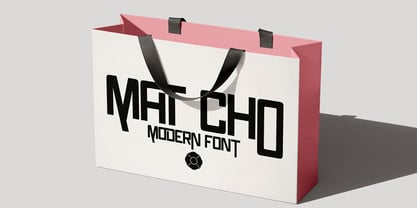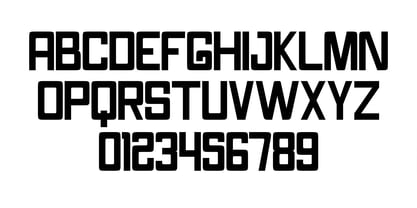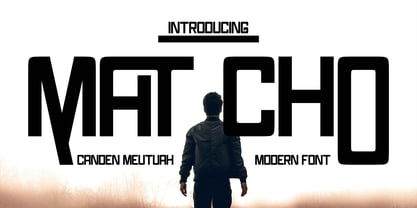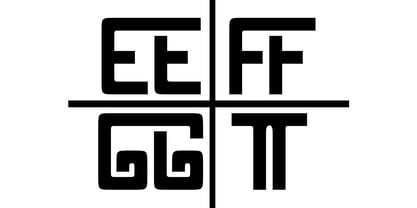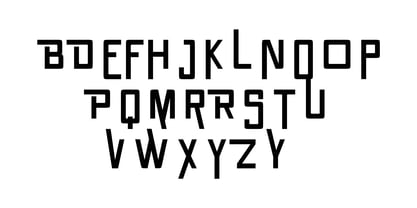
Mat Cho
von Canden Meutuah
Mat Cho is a bold and stylish condensed sans serif font, blending retro aesthetics with modern minimalism. Designed with uppercase and lowercase characters, Mat Cho features strict proportions, clean lines, and striking curves, giving your designs a bold personality.
This font is perfect for posters, logo designs, editorial titles, album covers, fashion branding, and display titles, attracting attention with a distinctive touch.
Designer: Canden Meutuah
Foundry: Canden Meutuah